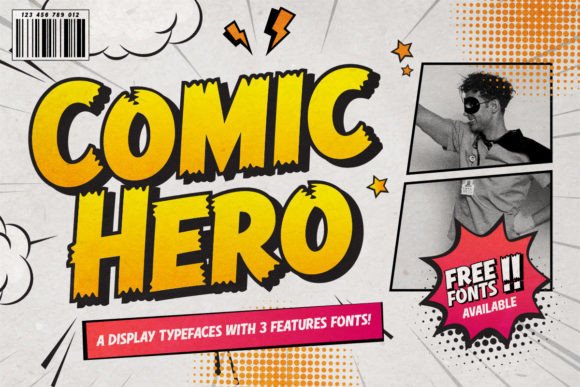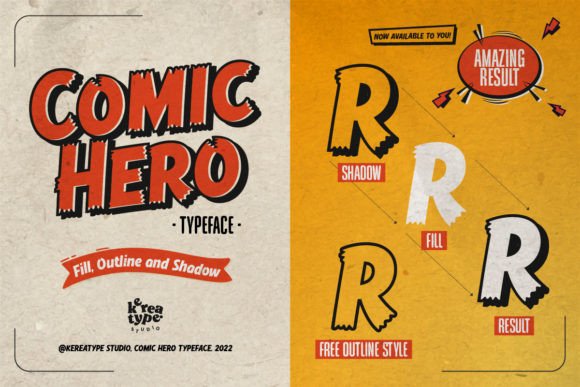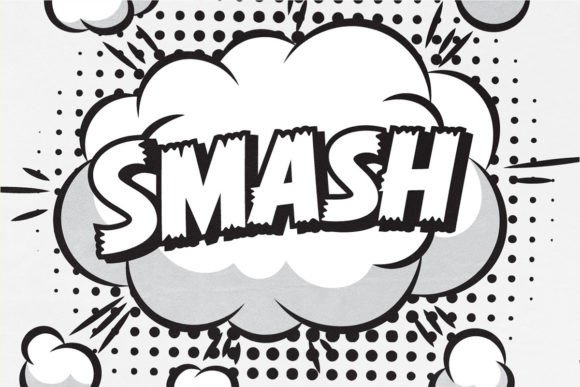
Comic Hero Font
Comic Hero is playful and strong. This font is perfect for a design that makes it more attractive and playful. made with a very good level of aesthetics making this font suitable for book covers, children’s books, comics, posters, packaging, merchandise, logotype, and much more.